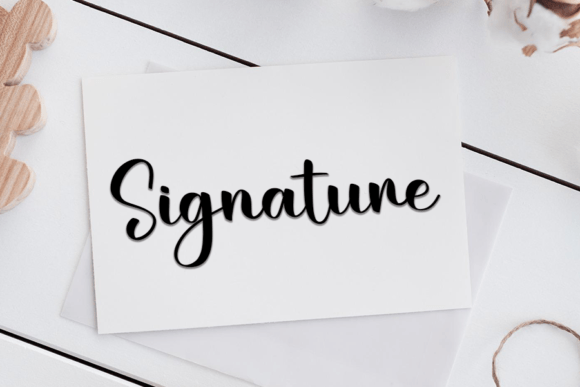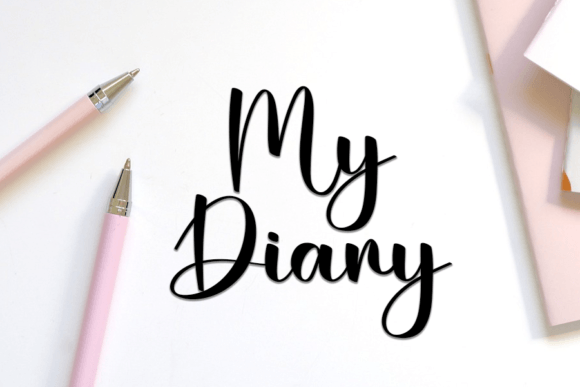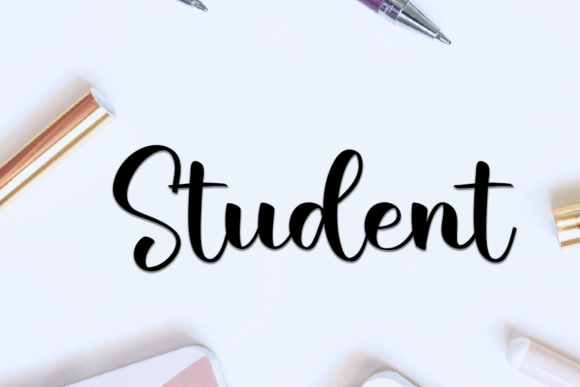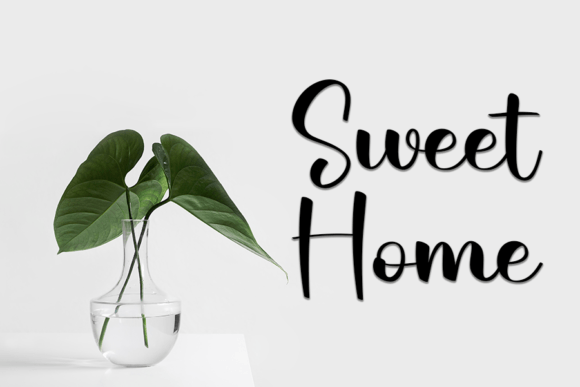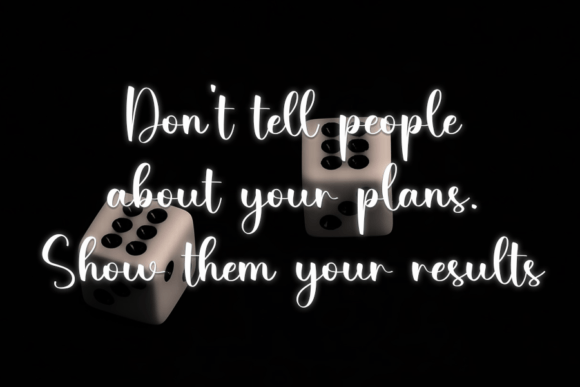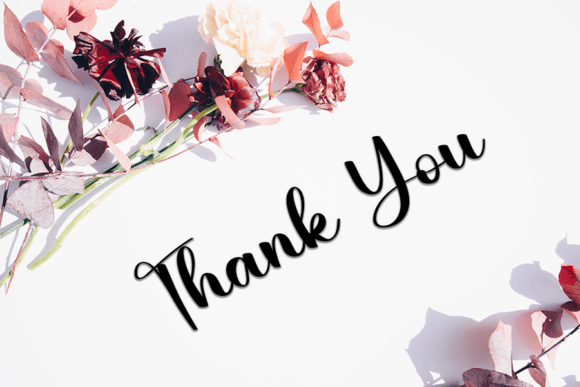
Introducing Champion Font: The Ultimate Script Font for Designers and Crafters
Are you tired of using the same old fonts for your designs and crafts? Look no further than Champion Font, a bold and beautiful script font that’s perfect for a variety of projects. Whether you’re a digital designer, a crafter, or simply someone who loves to create greeting cards, Champion Font has the potential to become your go-to font for any occasion.
What Makes Champion Font So Special?
Champion Font is a unique and elegant script font that’s designed to make a statement. Its bold and beautiful letters are perfect for adding a touch of sophistication and style to any project. The font is highly versatile, making it suitable for a wide range of applications, from digital designs and presentations to crafts and greeting cards.
Key Features of Champion Font
- Bold and Beautiful: Champion Font features bold and beautiful letters that are sure to grab attention.
- Highly Versatile: The font is suitable for a wide range of projects, from digital designs and presentations to crafts and greeting cards.
- Elegant and Sophisticated: Champion Font adds a touch of elegance and sophistication to any project.
- Easy to Read: Despite its bold nature, Champion Font is easy to read, making it perfect for both digital and print applications.
Uses for Champion Font
Champion Font is perfect for a variety of projects, including:
- Digital Designs: Use Champion Font to add a touch of elegance and sophistication to your digital designs, such as social media graphics, blog posts, and website headers.
- Crafts: Champion Font is perfect for crafters who love to create handmade cards, scrapbook pages, and other paper crafts.
- Presentations: Add a touch of professionalism and style to your presentations with Champion Font.
- Greeting Cards: Use Champion Font to create beautiful and personalized greeting cards for any occasion.
Why Designers and Crafters Love Champion Font
Designers and crafters love Champion Font for its unique and elegant style. The font is highly versatile, making it perfect for a wide range of projects. Additionally, Champion Font is easy to read, making it suitable for both digital and print applications.
Tips for Using Champion Font
- Experiment with Different Sizes: Champion Font looks great in a variety of sizes, from small and delicate to large and bold.
- Pair with Other Fonts: Champion Font pairs well with other fonts, such as sans-serif fonts and serif fonts.
- Use for Headings and Titles: Champion Font is perfect for headings and titles, adding a touch of elegance and sophistication to any project.
In conclusion, Champion Font is a bold and beautiful script font that’s perfect for designers and crafters. Its highly versatile nature makes it suitable for a wide range of projects, from digital designs and presentations to crafts and greeting cards. With its elegant and sophisticated style, Champion Font has the potential to become your go-to font for any occasion.